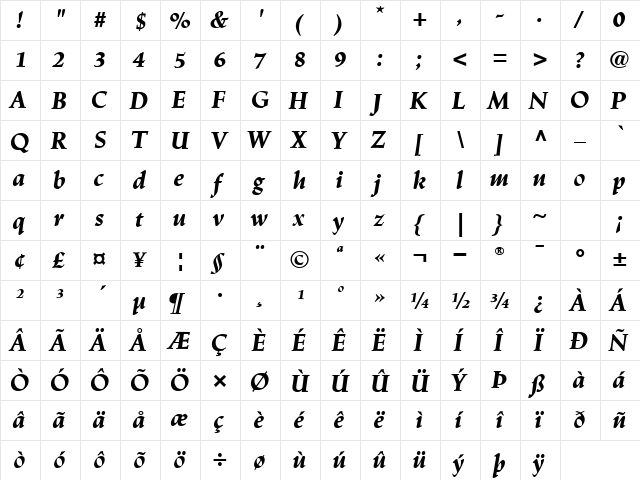
LinotypeTrajanus BlackItalic
Design Context for LinotypeTrajanus Typeface
LinotypeTrajanus is a composed and adaptable typeface that performs quietly and consistently across a wide range of design contexts. The dynamic lean of this cut emphasises speed and emphasis in any layout.
Pro Tip: Try LinotypeTrajanus for annotation and caption copy alongside an upright companion — the contrast in angle creates a dynamic but ordered typographic system.